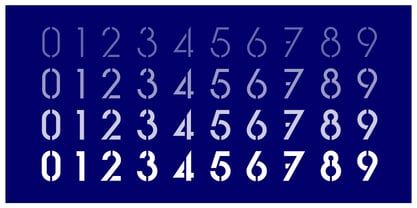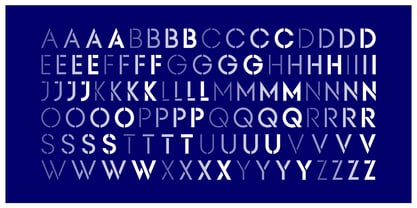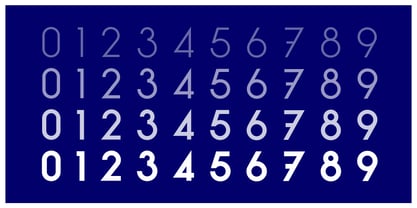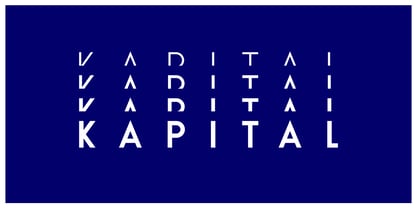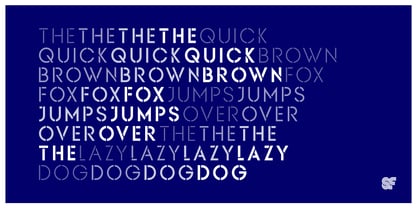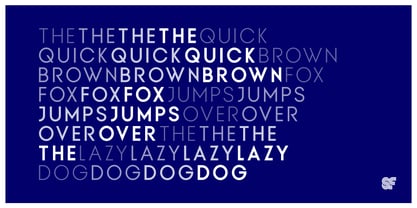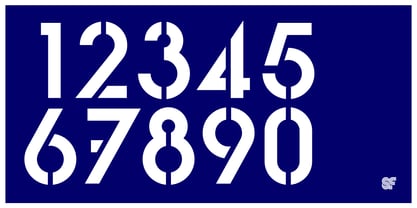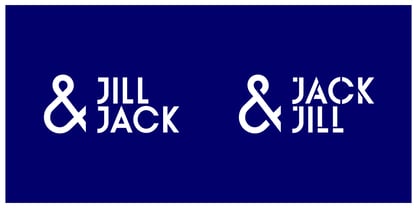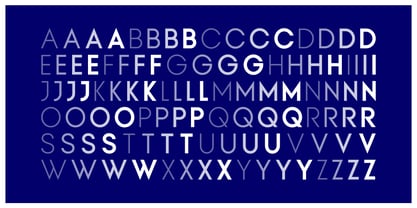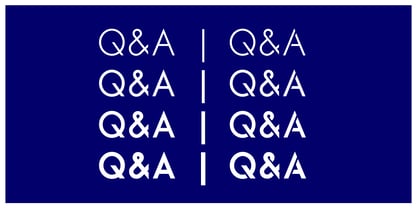
KAPITAL
by Superfried
The KAPITAL Font Family was designed by Mark Richardson and published by Superfried. KAPITAL contains 8 styles and family package options. More about this family
NEW - Remastered for 2025! Kapital, designed by Superfried in 2018 and remastered for 2025, is an elegant geometric uppercase sans-serif typeface. Available in both standard and stencil styles, it features four versatile weights: light, regular, medium, and demi-bold. This type family draws inspiration from the uppercase character set of its predecessor, Basik, while enhancing its clean, geometric aesthetics to achieve a more minimalistic style.  The letterforms of Kapital are deliberately simple with a focus on clarity, allowing the characters to convey information without distraction. Special attention has been given to the consistency of glyph forms across different weights, ensuring that the integrity of the design is maintained. Additionally, adjustments have been made to key letterforms to optimize negative space, minimizing deviations that often occur with increased weight.  Ideal for branding, editorial design, and web applications, Kapital stands out for its refined simplicity and functional elegance.
Designers: Mark Richardson
Foundry: Superfried